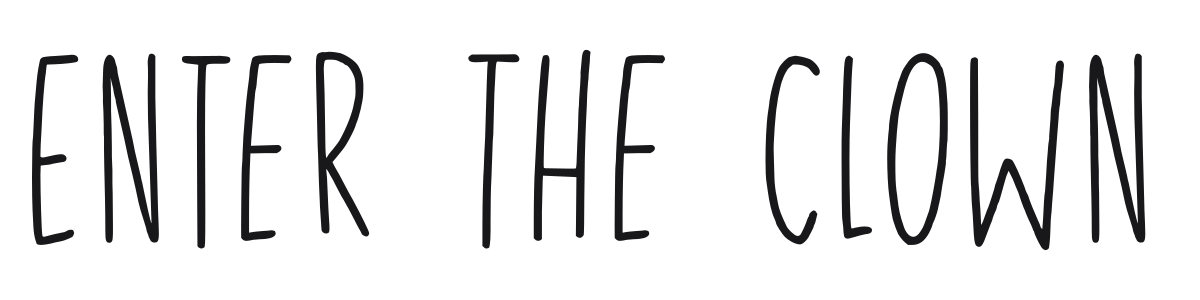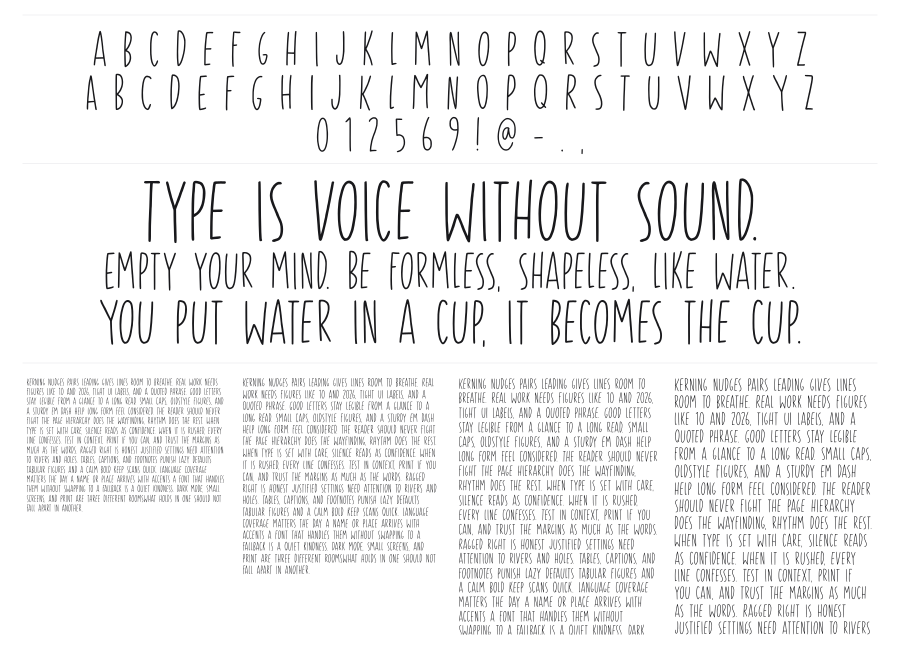
Enter The Clown
Enter The ClownLicense is a loose, handwritten sans with tall narrow proportions and the kind of cheerful irregularity that feels genuinely hand-drawn rather than mechanically constructed. Subtle variation in stroke weight and letter height keeps each word feeling lively without tipping into chaos. It carries a circus-adjacent personality that works well for anything needing warmth, humor, or a personal touch.